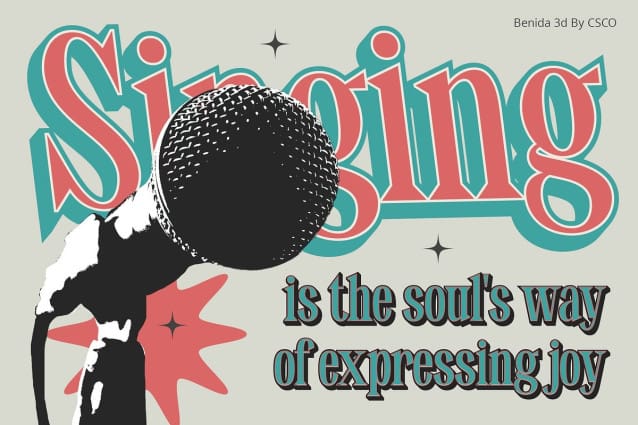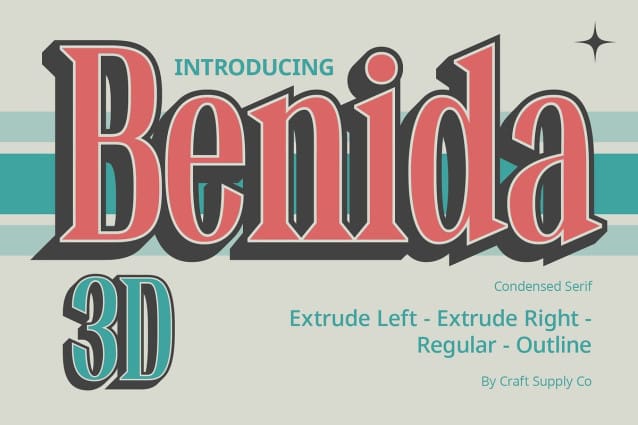
Benida 3D Font
Benida 3D Font: Elevate Your Display with Dimensional Elegance. Dynamic Display Presence Benida3D commands attention with its basic serif shapes and condensed structure, creating a dynamic and impactful visual presence.
The Allure of Condensed Serifs The font’s condensed serif design enhances readability, making it an excellent choice for headlines, banners, and other display purposes where space efficiency is key.
Immerse in 3D Depth Experience a new dimension with Benida 3D. The font transcends flatness, incorporating a stunning 3D effect that adds depth and intrigue to every character, elevating your designs.
Versatility for Every Project From sleek modern websites to vintage-inspired posters, Benida 3D adapts seamlessly. Its versatility makes it a go-to choice for a wide range of projects, ensuring your creativity knows no bounds.
In Summary Benida 3D isn’t just a font; it’s a design asset that transforms your display projects. With its condensed serif structure and mesmerizing 3D effect, this font is your gateway to dimensional elegance and visual impact.